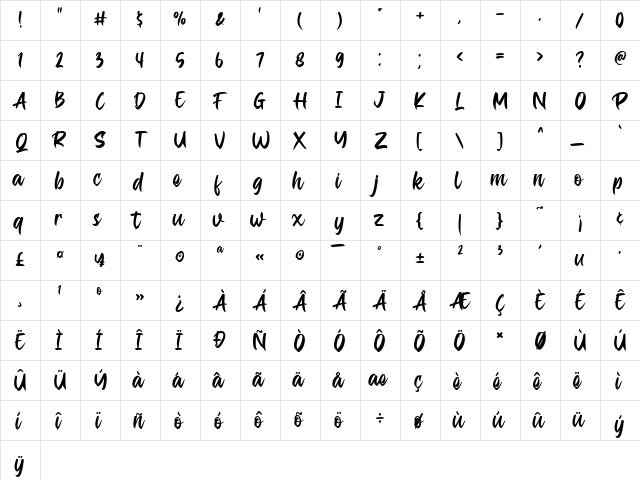
Darkspear Regular
Design Context for Darkspear Typeface
Darkspear is a composed and adaptable typeface that performs quietly and consistently across a wide range of design contexts.